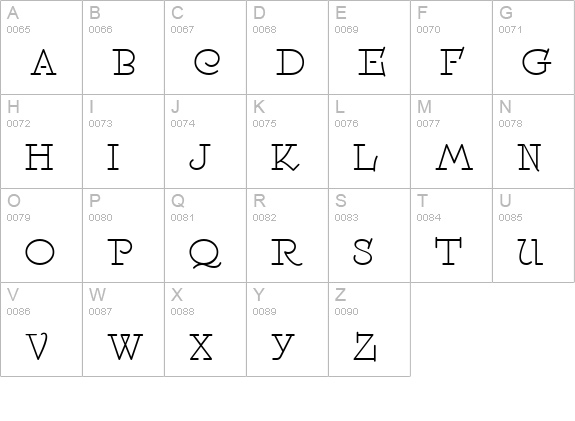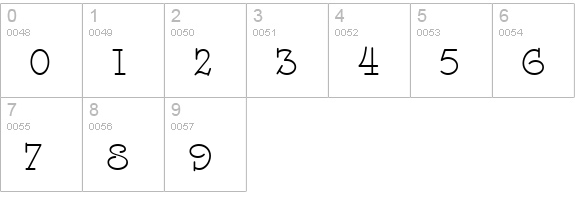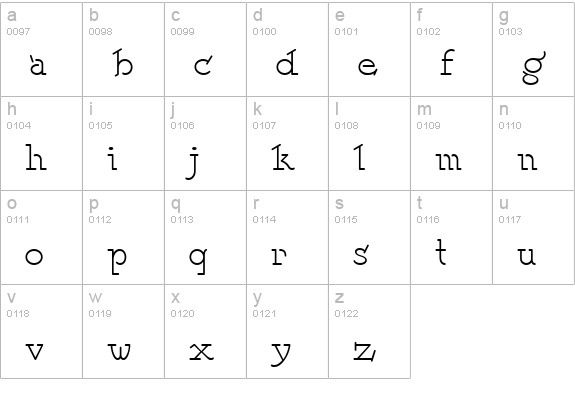
SpeedballNo2NF is a captivating and versatile font that effortlessly combines elegance with a touch of modernity. Its sleek and streamlined letterforms exude a sense of dynamism and energy, making it the perfect choice for projects that require a bold and impactful statement. The clean lines and balanced proportions of SpeedballNo2NF give it a timeless appeal, making it suitable for a wide range of design applications. Whether you're creating eye-catching logos, attention-grabbing headlines, or stylish branding materials, this font will elevate your designs to new heights. One of the most remarkable features of SpeedballNo2NF is that it is available for free download at FontsMarket.com. This means that you can enjoy the beauty and versatility of this font without any cost. It's a fantastic opportunity to add a high-quality and professionally designed font to your collection without breaking the bank. With its extensive character set, SpeedballNo2NF offers support for multiple languages, allowing you to effortlessly communicate your message to a global audience. Its legibility and clarity ensure that every word is easily readable, even at smaller sizes. SpeedballNo2NF is the perfect choice for designers who seek a font that combines style, versatility, and affordability. Whether you're working on personal projects or professional assignments, this font will undoubtedly leave a lasting impression. Don't miss the chance to download SpeedballNo2NF for free at FontsMarket.com and unlock a world of design possibilities.